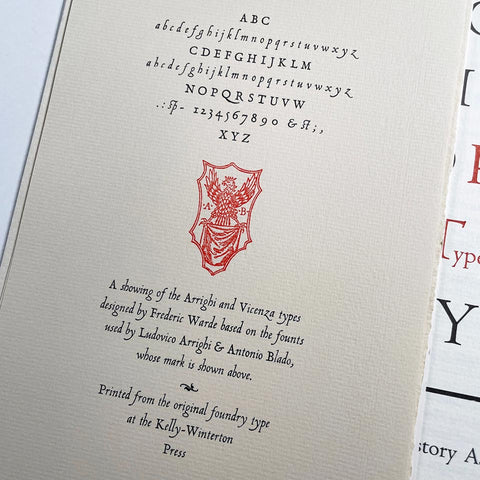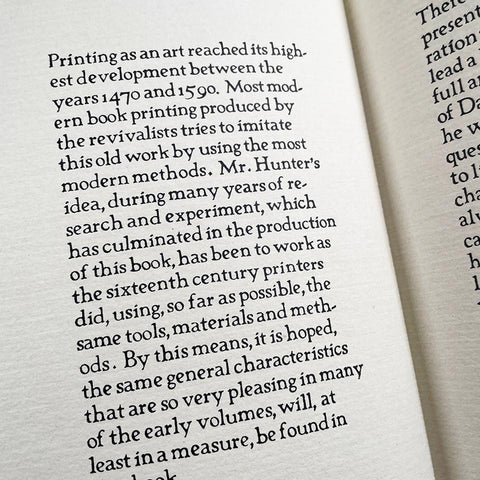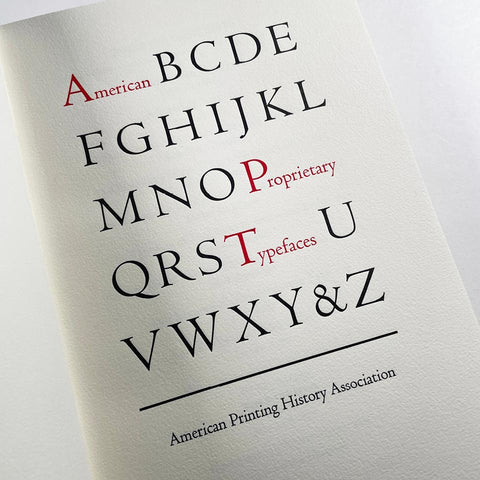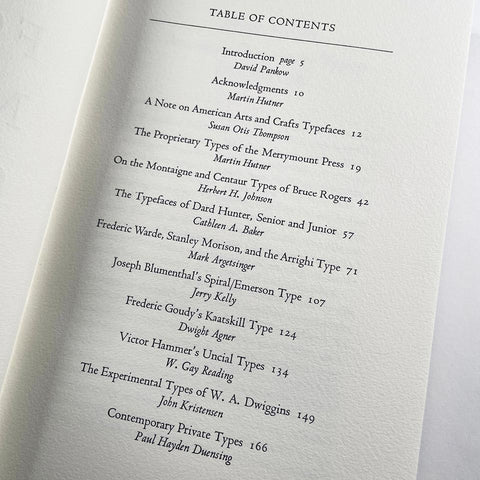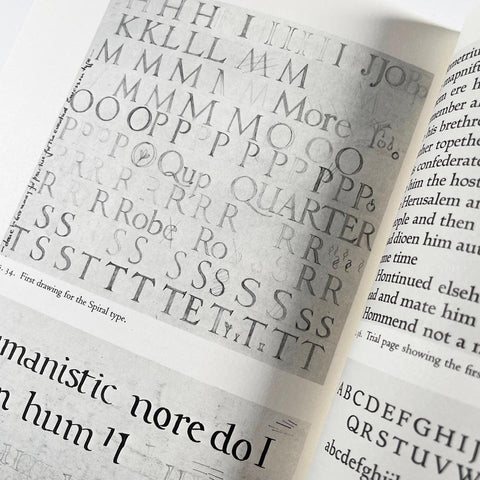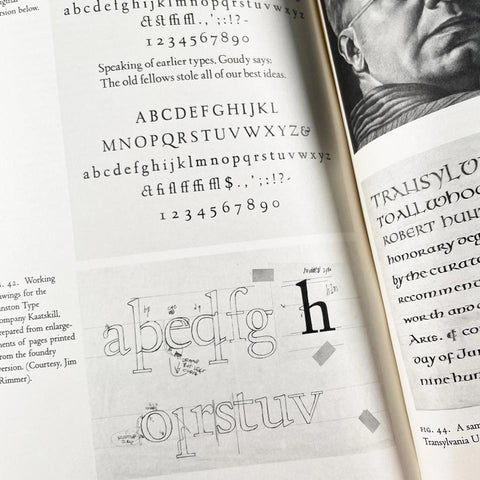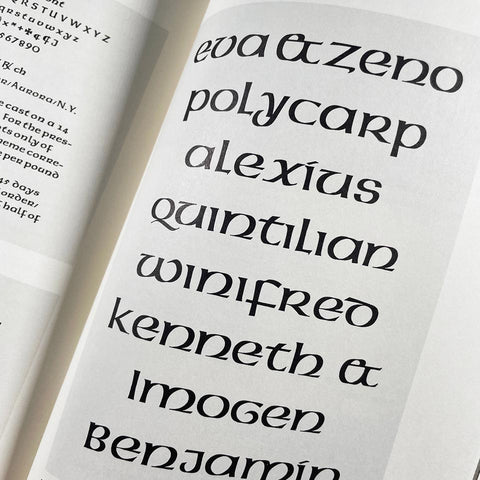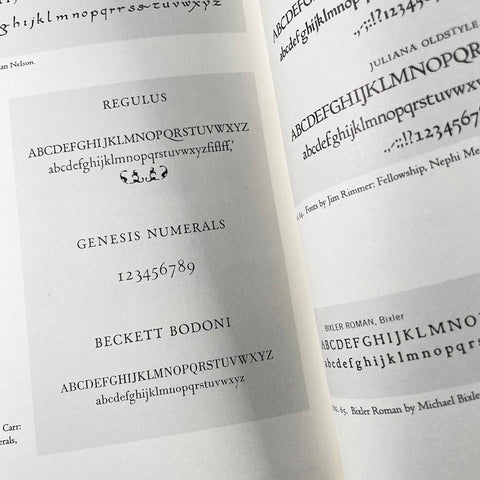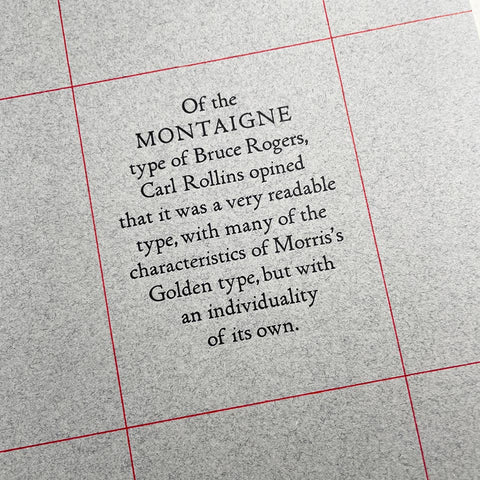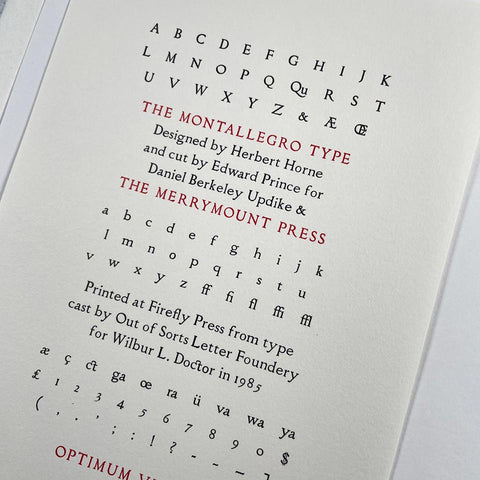
American Proprietary Typefaces
In these first days of 2026, it’s easy to forget that at one time in history, a proprietary typeface was a rare thing. It took a lot of work to make type. Yeah, yeah. We know. It still does. But in the hot type era, it was a different kind of work. It took forever and was incredibly expensive. Now everyone and every company has a custom typeface. But this is a book about American proprietary typefaces in the early twentieth century, when such a thing was not at all common. Updike. Dwiggins. Rogers. Take a look at that table of contents. This book tells the story of the old guys making types for their own pleasure and purpose. Now, this one is a reader with only handful of illustrations. But it’s from the de luxe edition of 120 copies printed on fancy paper and with an extra suite of broadsides printed from some of the American proprietary types in question.